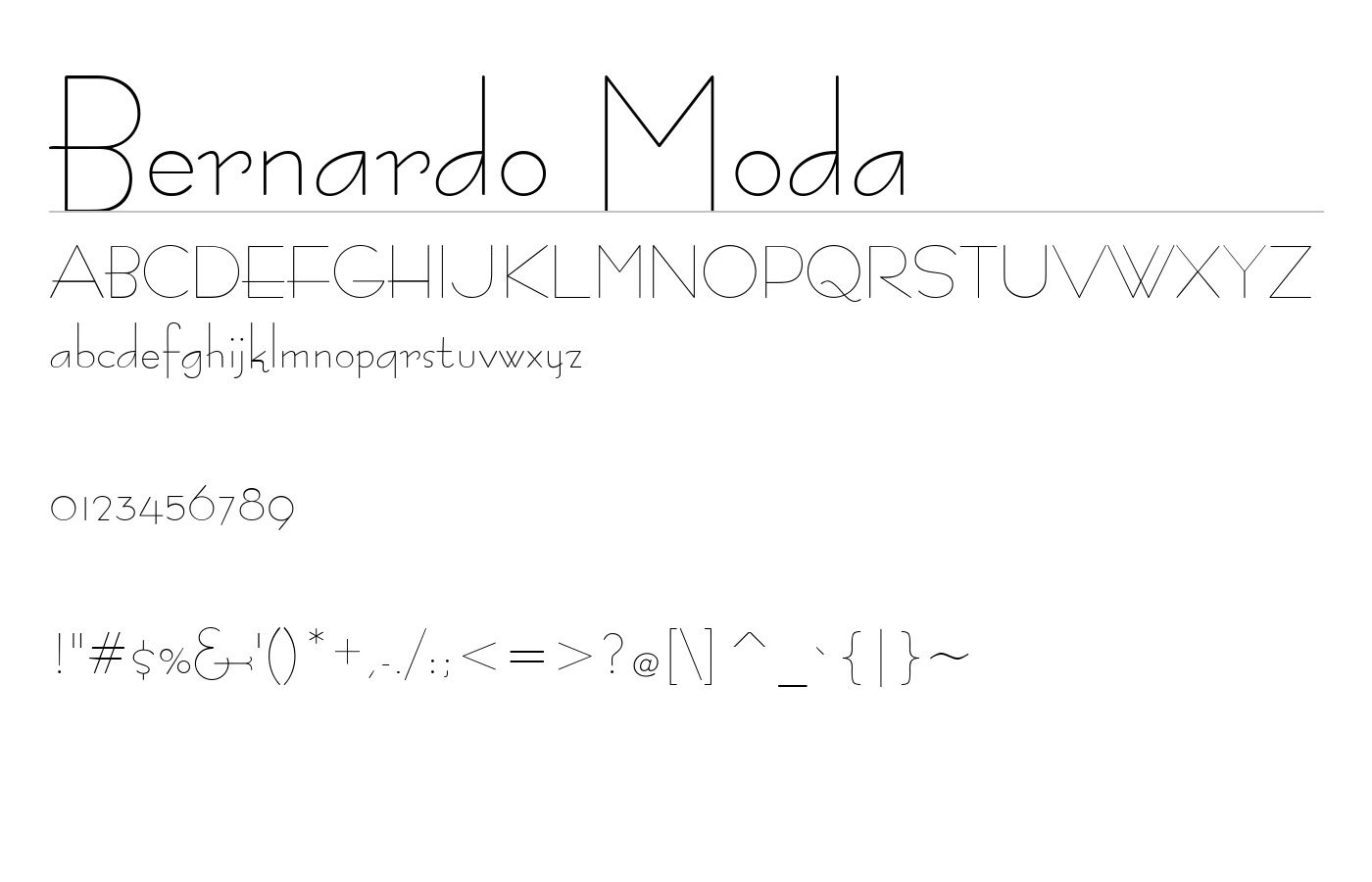
Bernardo Moda is a delicate and elegant sans serif font with a high contrast between its thin, fine lines and slightly curved strokes, giving it a refined and modern appeal. Its tall x-height and unique, playful letterforms, such as the looped tail on the 'Q' and the stylized ampersand, make it perfect for chic branding, fashion editorials, and sophisticated headlines that require a touch of modern luxury. This font works best in large sizes where its intricate details and airy spacing can truly shine.
Bernardo Moda Font